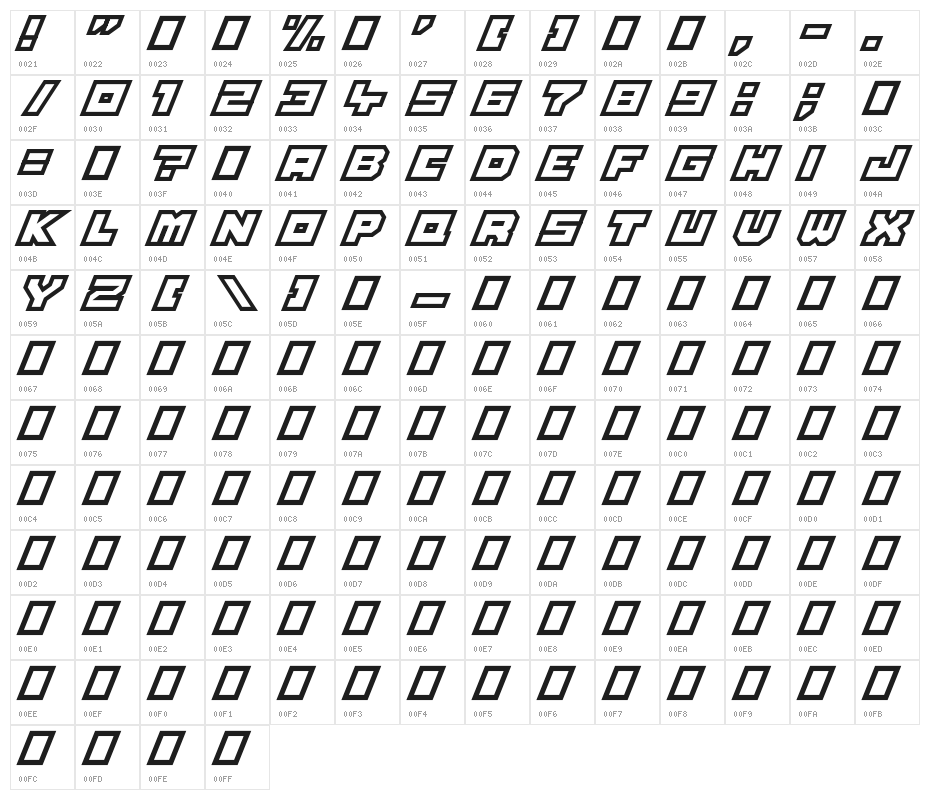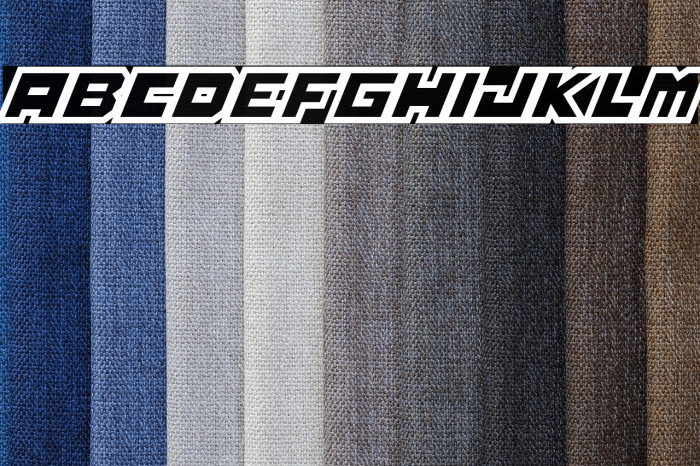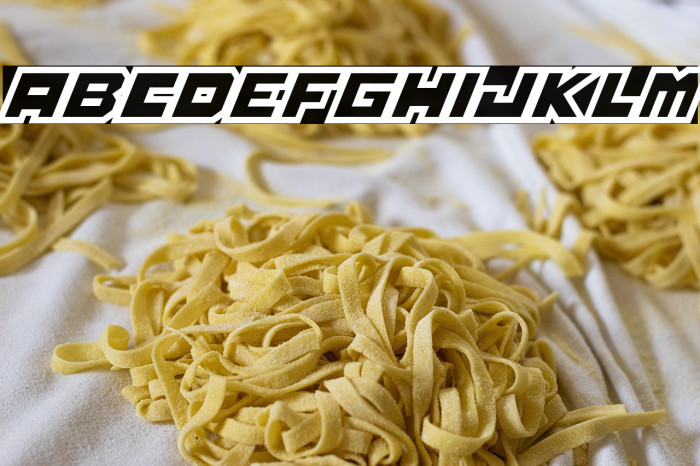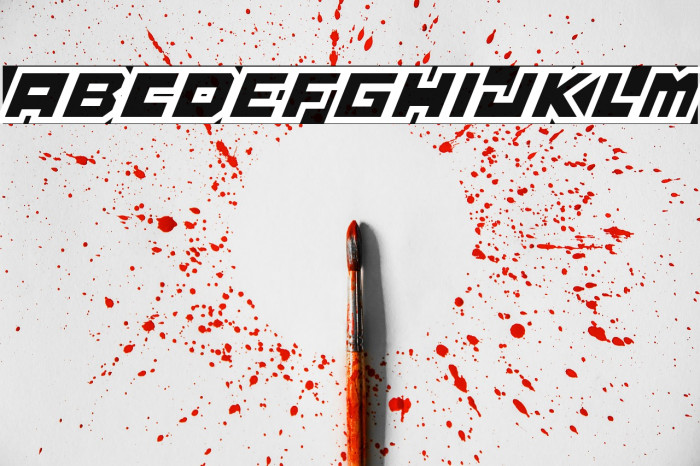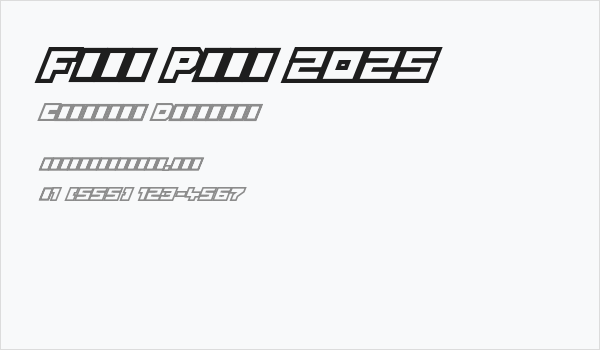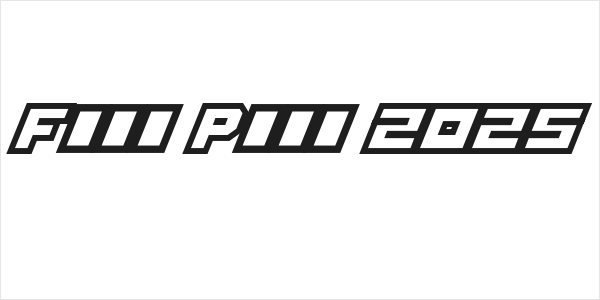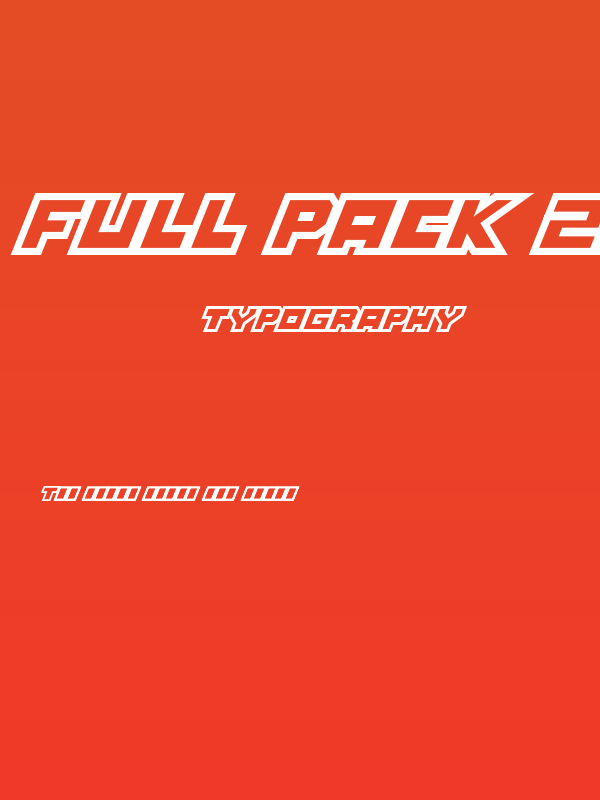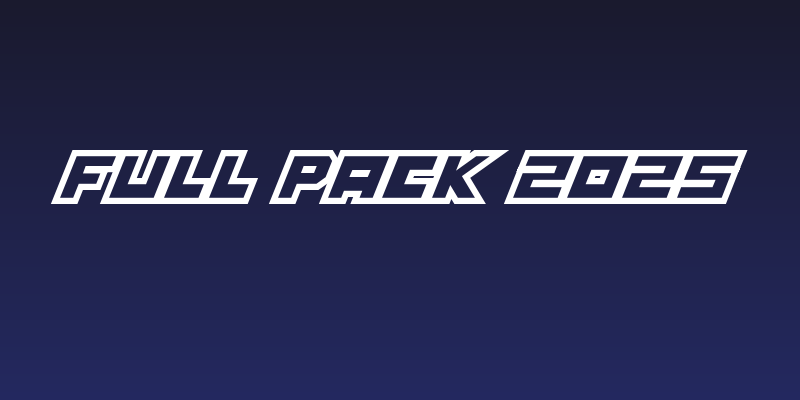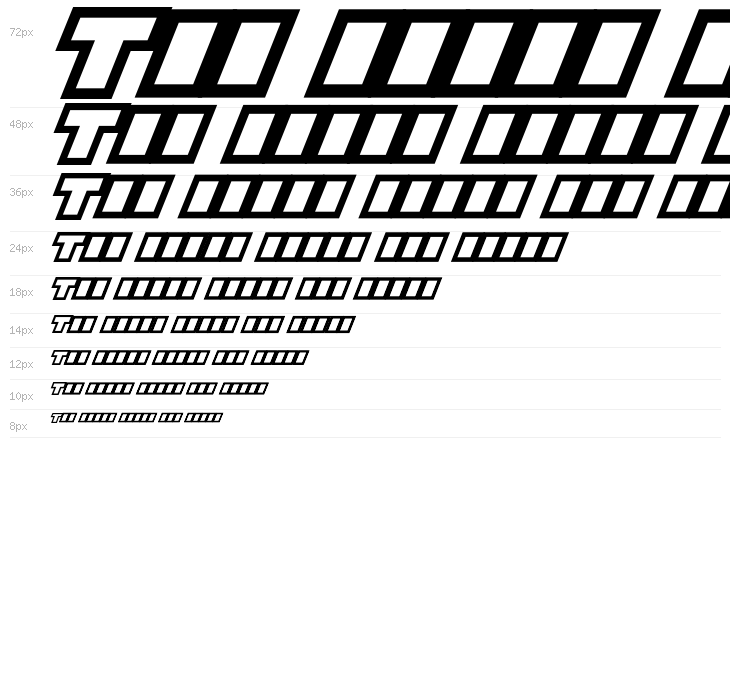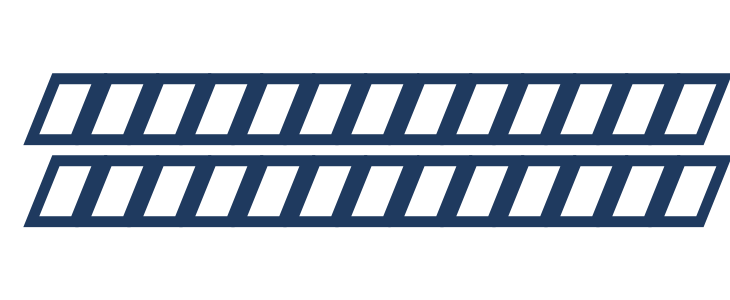
Full Pack 2025 Font
Full Pack 2025 Description
This font features a bold, angular design with a futuristic and dynamic appearance. The characters are sharply defined with thick outlines and a slightly slanted orientation, giving a sense of motion and energy. The uppercase letters are particularly striking, with a geometric style that is consistent throughout the alphabet. The numerals and special characters maintain this bold and edgy aesthetic, making the font suitable for attention-grabbing designs. The overall look is modern and somewhat aggressive, ideal for projects that require a strong visual impact.
| Proposed Projects | Ideal for sports branding, video game titles, sci-fi movie posters, and dynamic logo designs. |